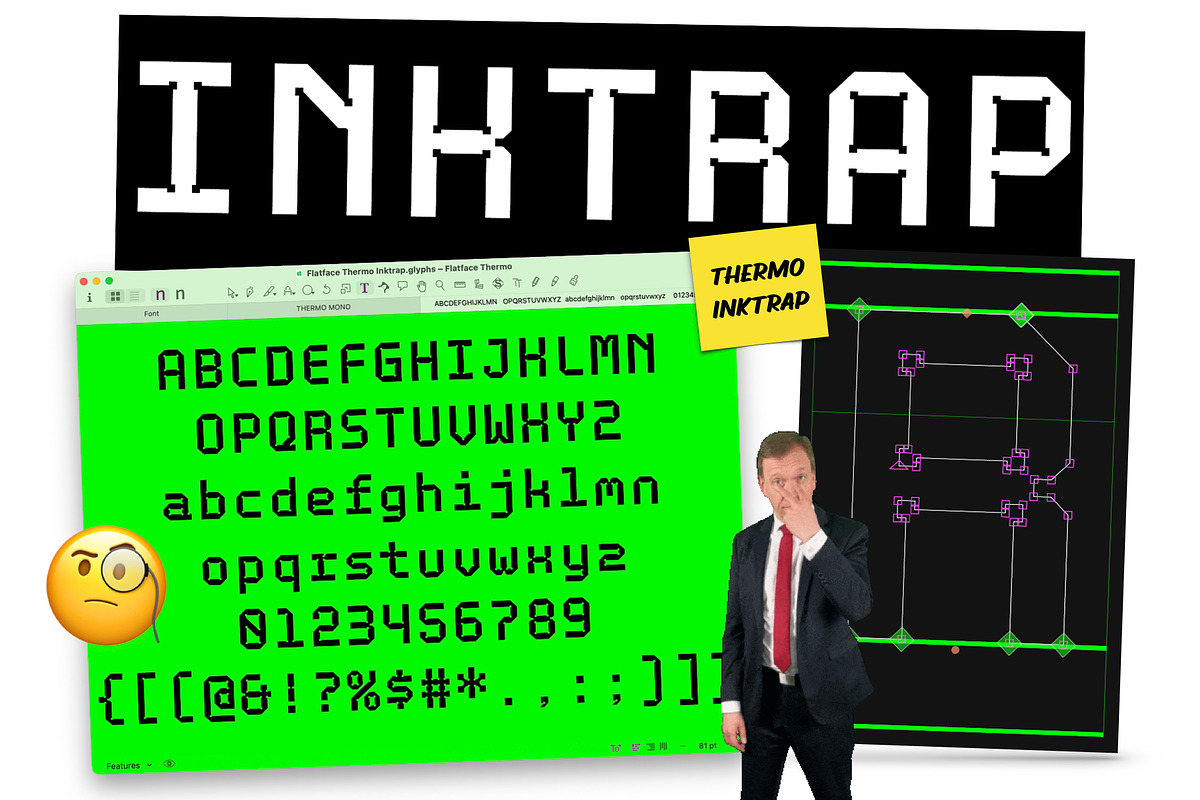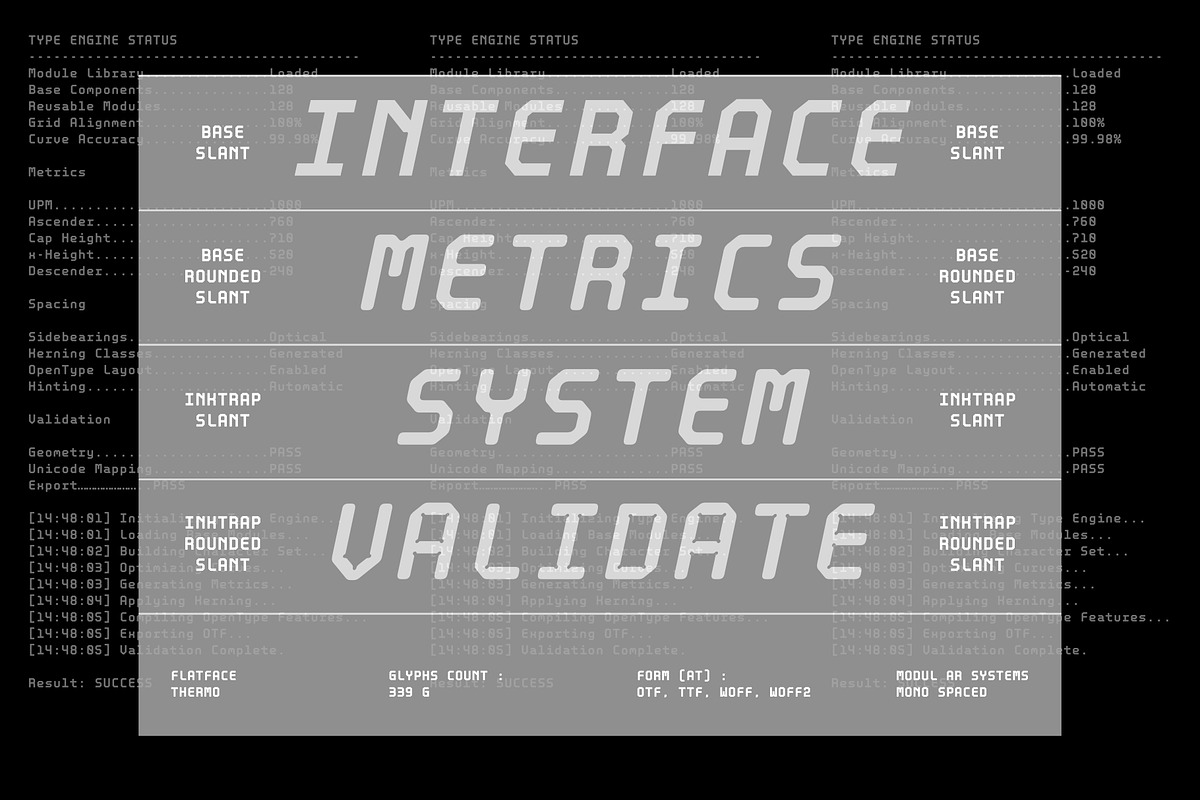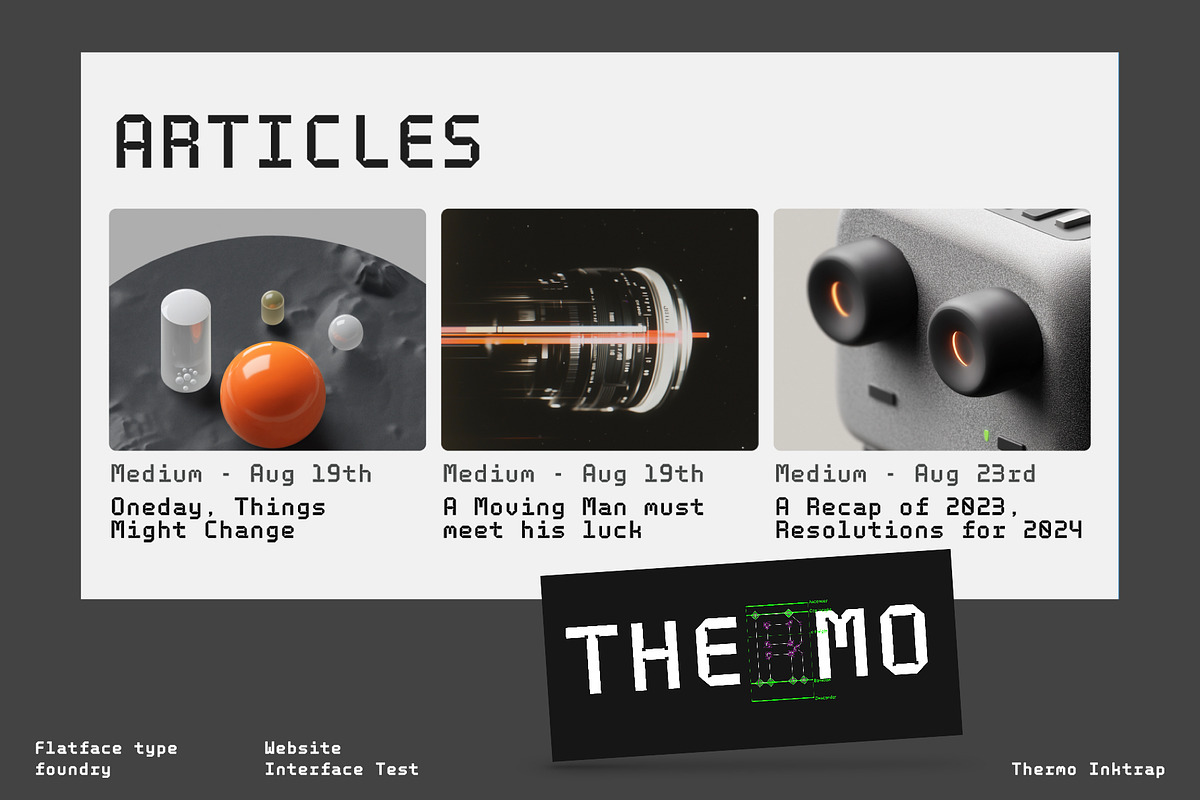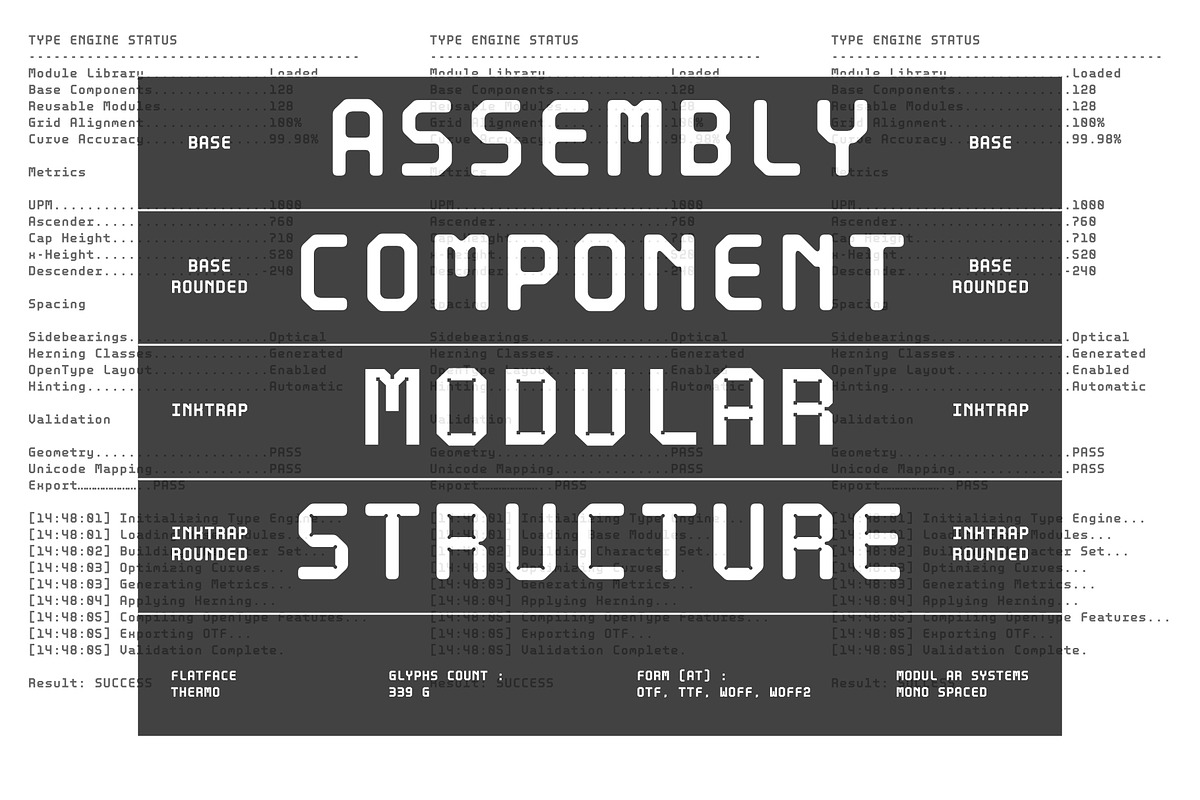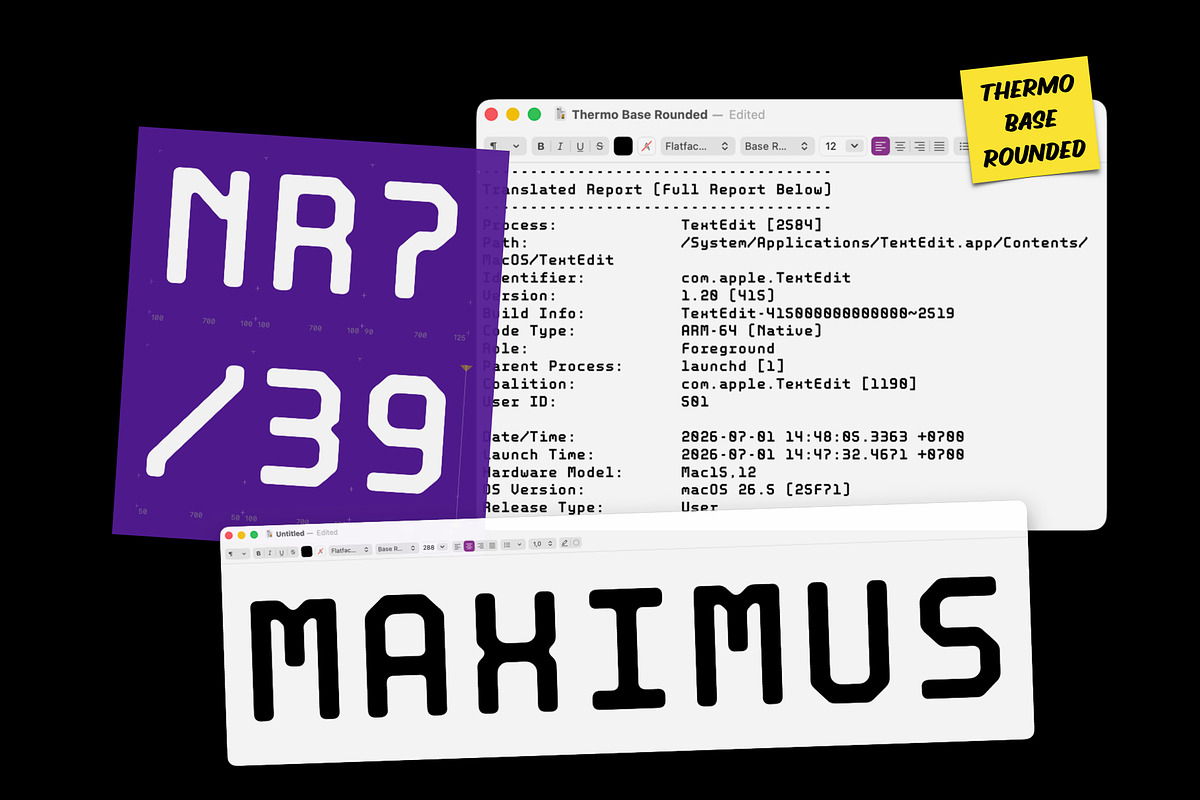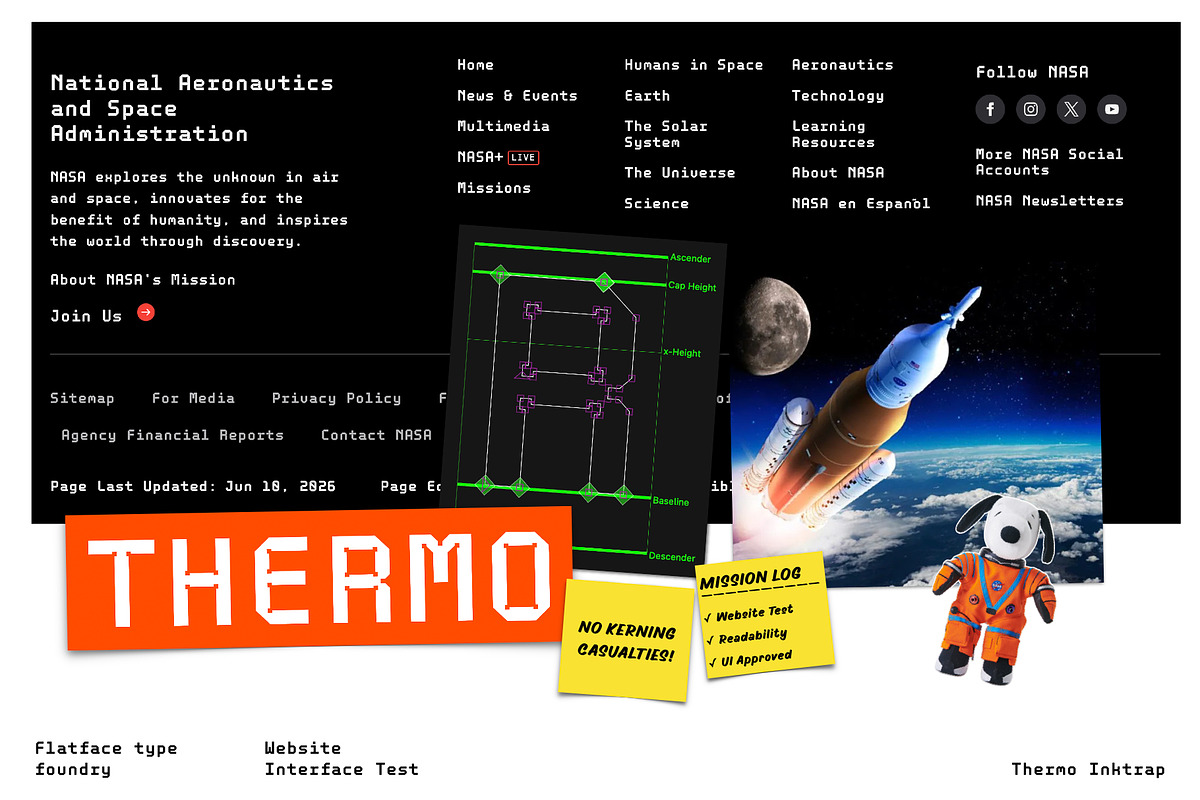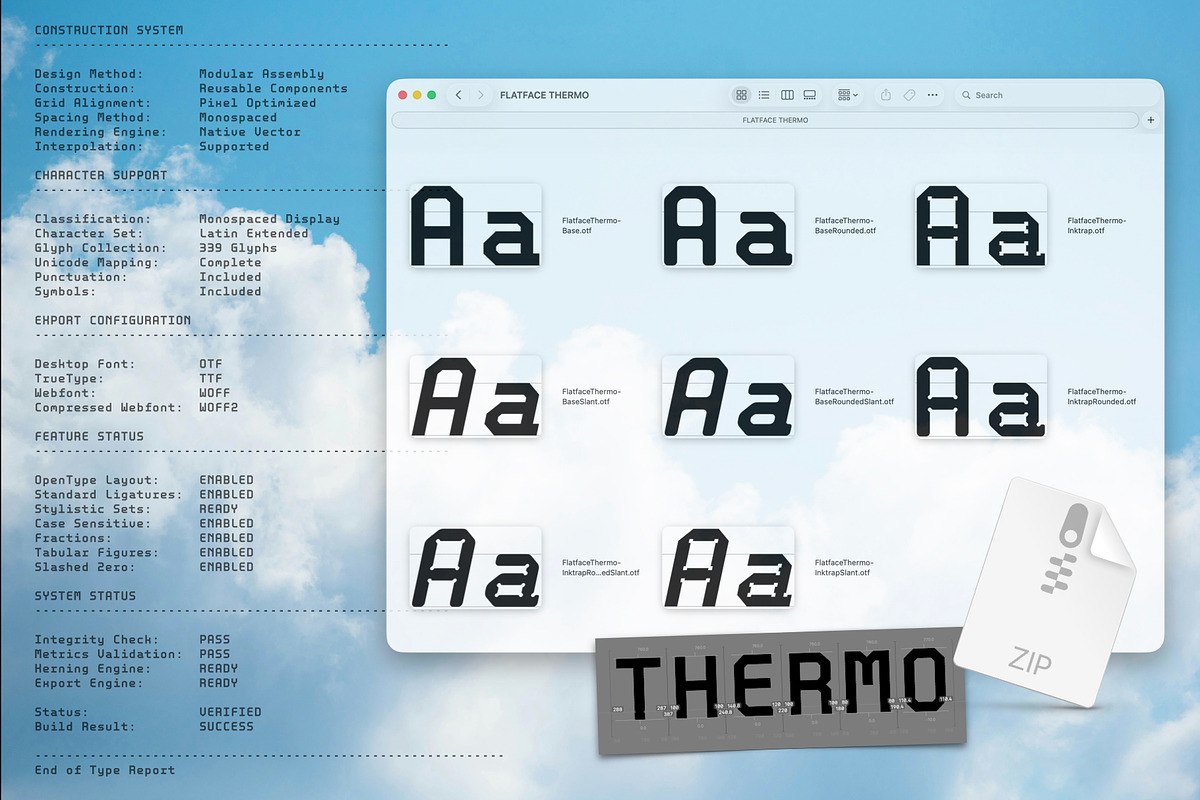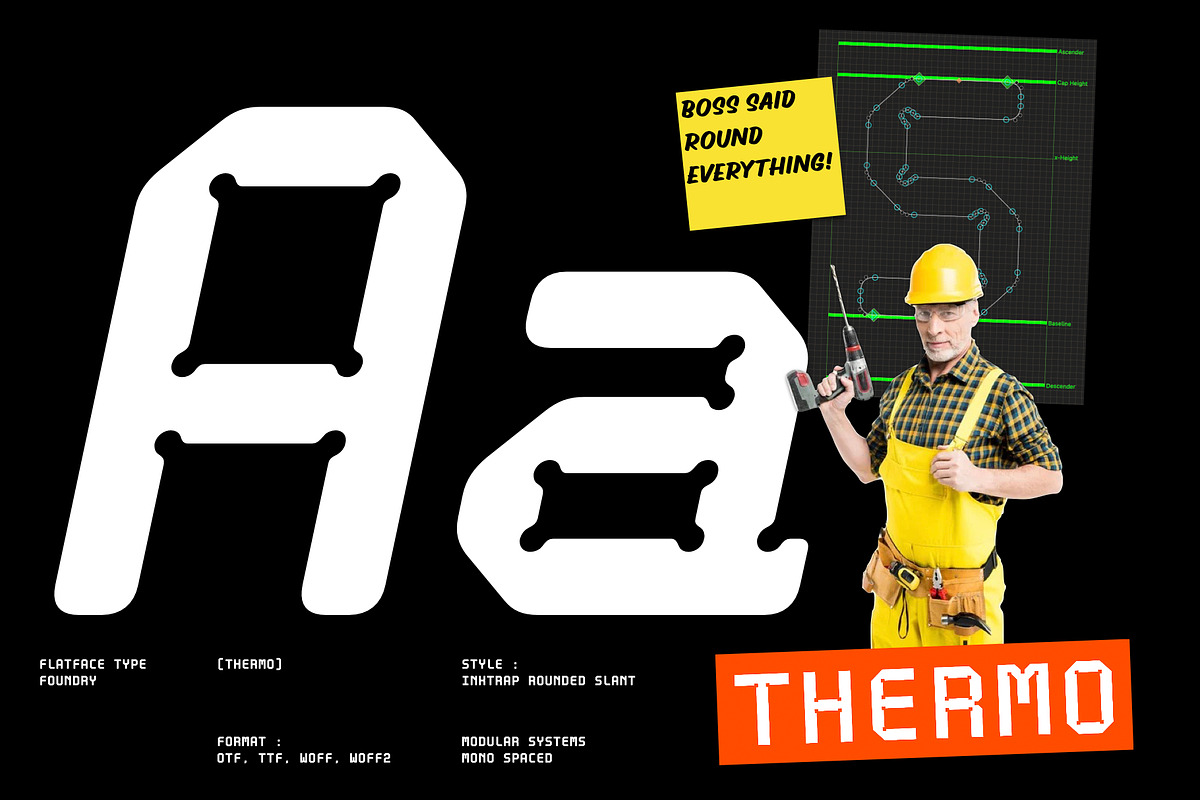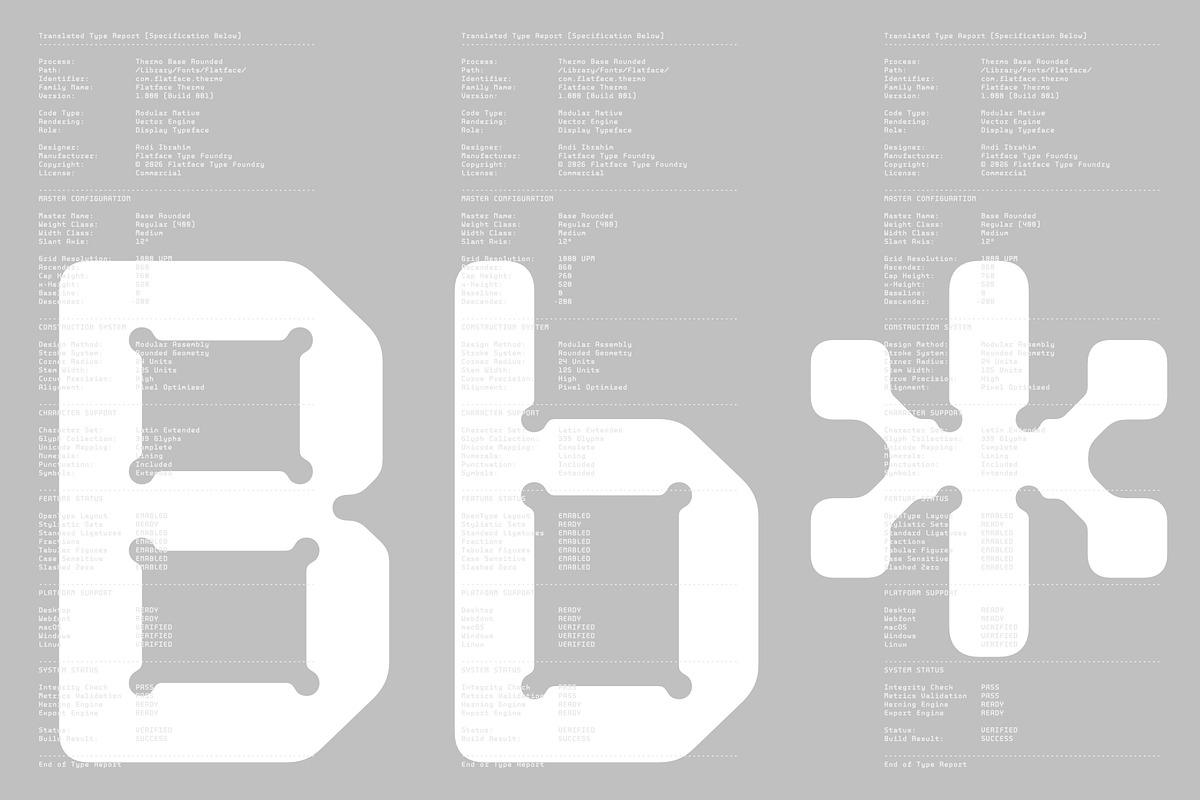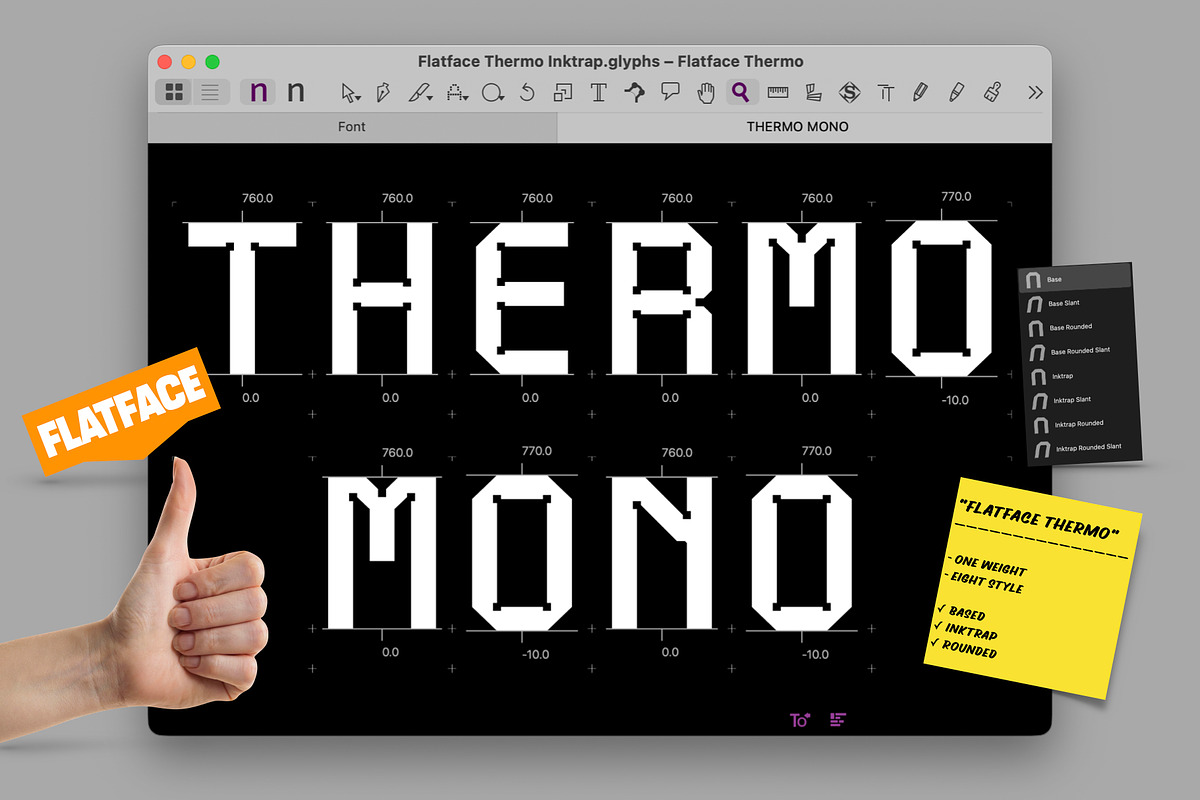
Flatface Thermo Mono
Flatface Thermo is a monospaced typeface family constructed from a modular design system. Built from a limited set of geometric components, each glyph shares the same structural DNA, resulting in a cohesive and highly recognizable typographic voice. Characterized by octagonal forms, chamfered corners, and engineered proportions, Thermo combines industrial precision with contemporary versatility. The modular construction creates a distinctive technical aesthetic while maintaining excellent readability and consistency across the family. Available in eight styles—Base, Base Slant, Base Rounded, Base Rounded Slant, Inktrap, Inktrap Slant, Inktrap Rounded, and Inktrap Rounded Slant—Flatface Thermo expands from a single foundation into multiple expressions while preserving a unified structural language. Designed for interfaces, branding systems, gaming, motion graphics, coding environments, and digital products, Thermo offers a precise, systematic approach to modern typography.